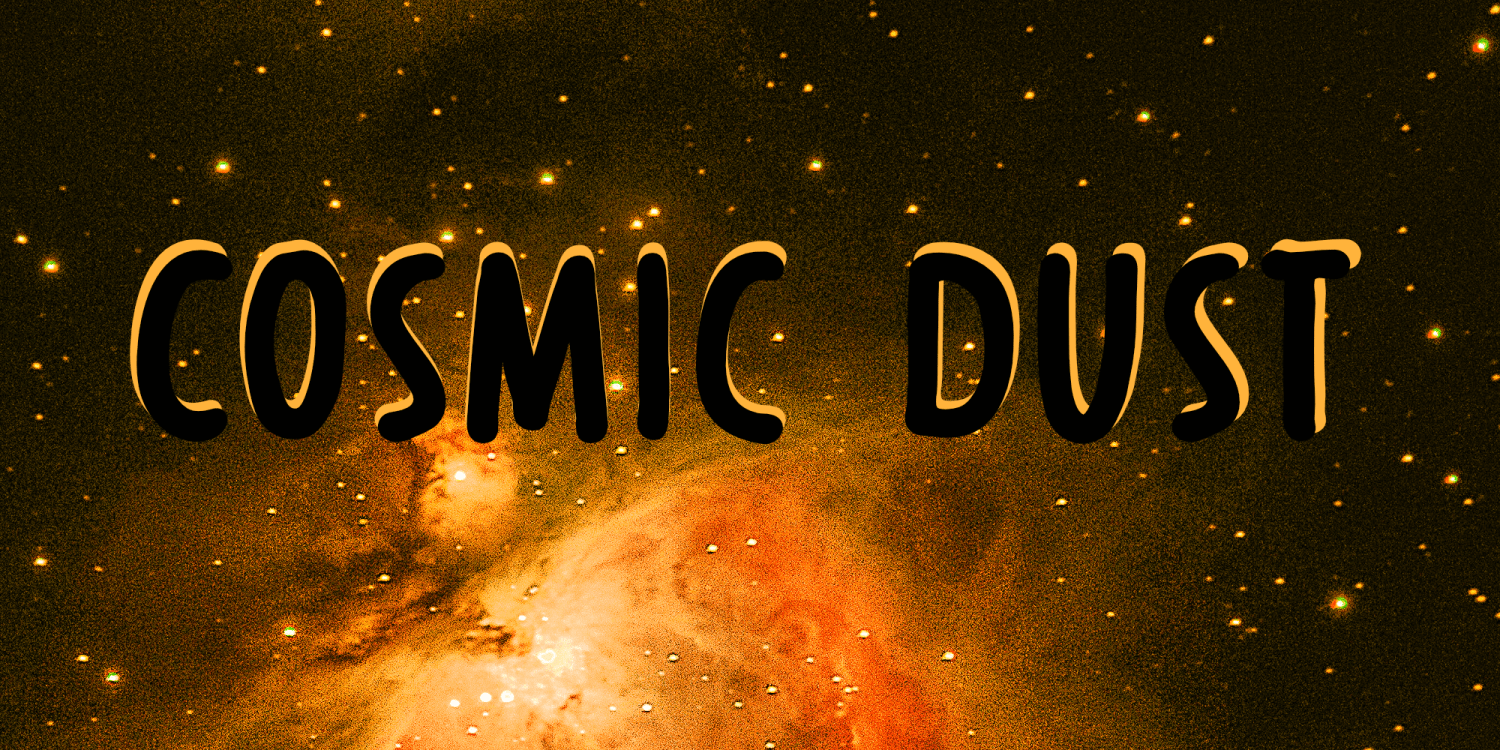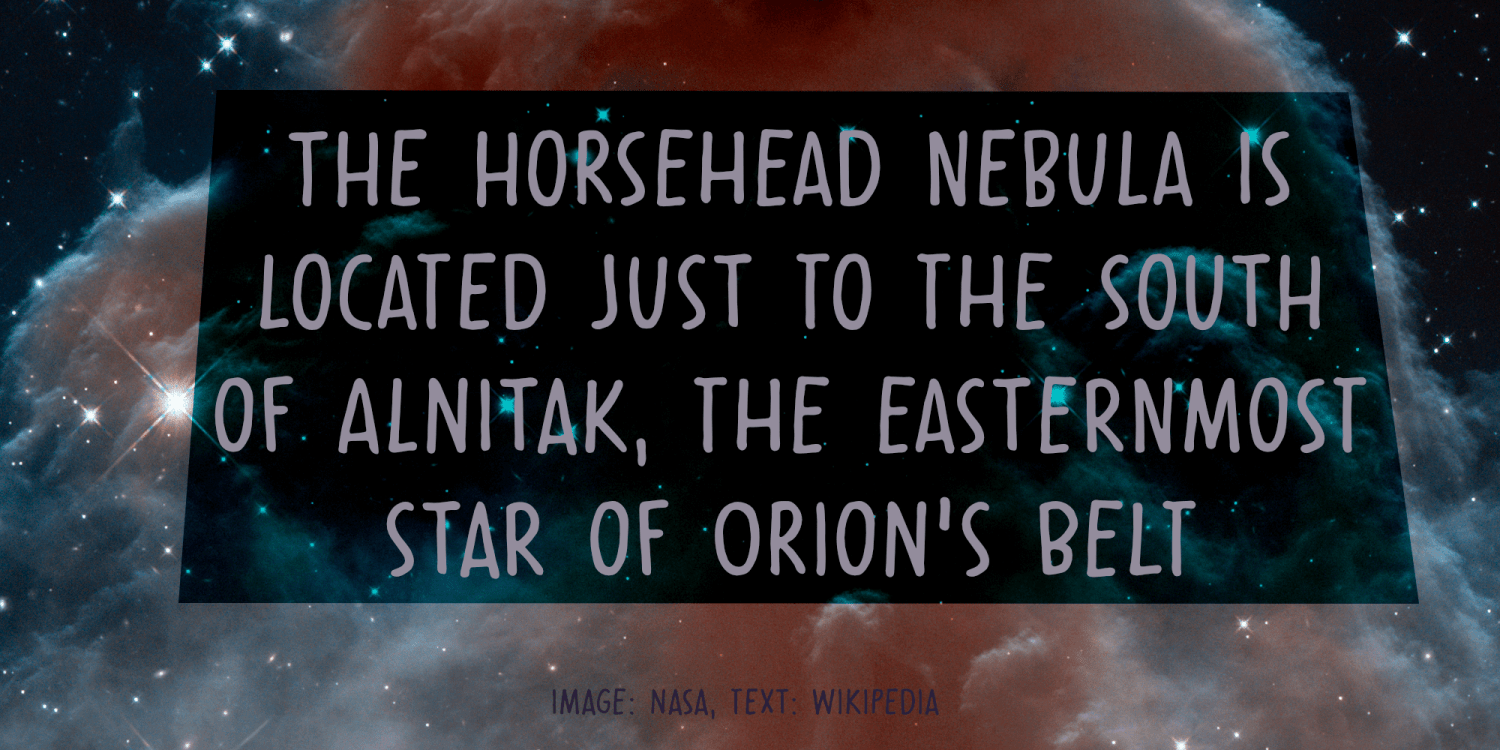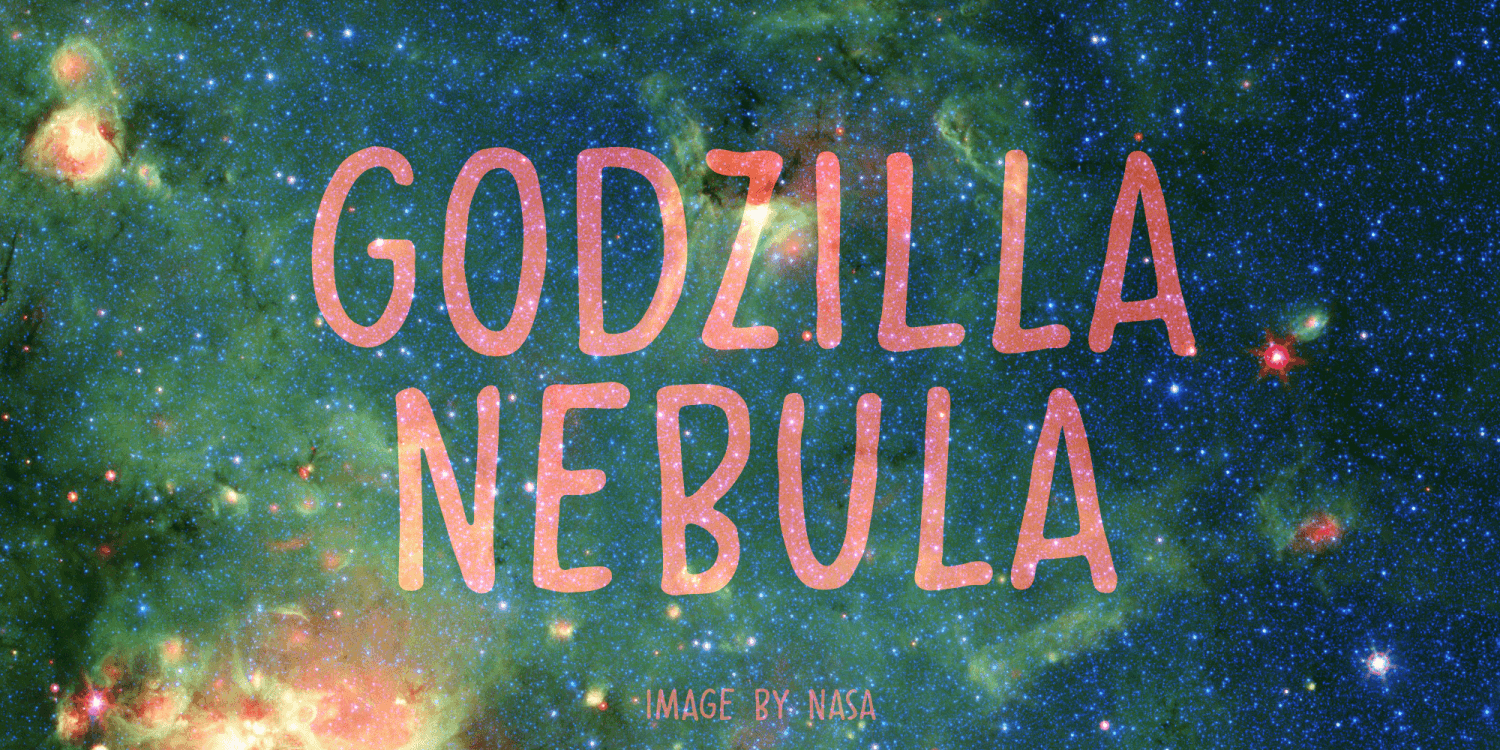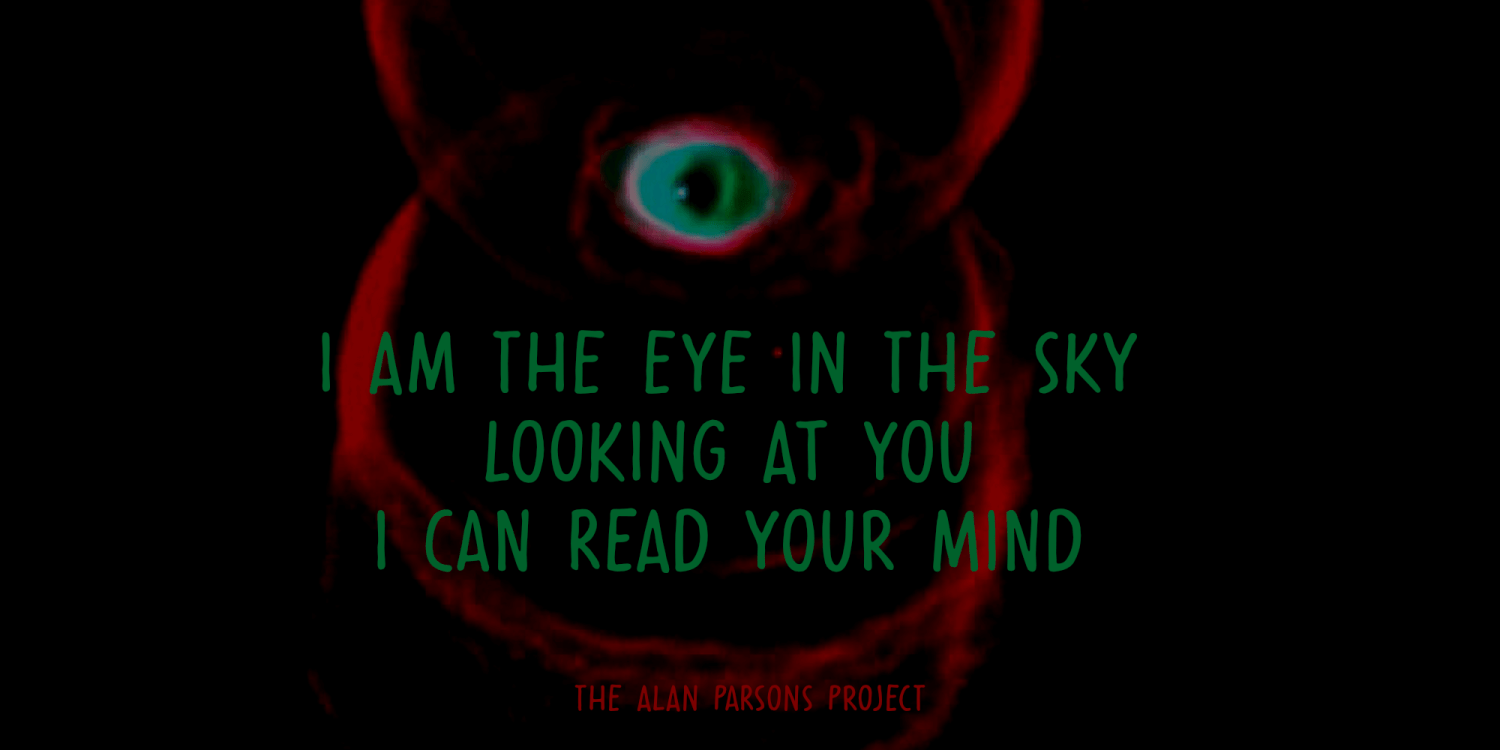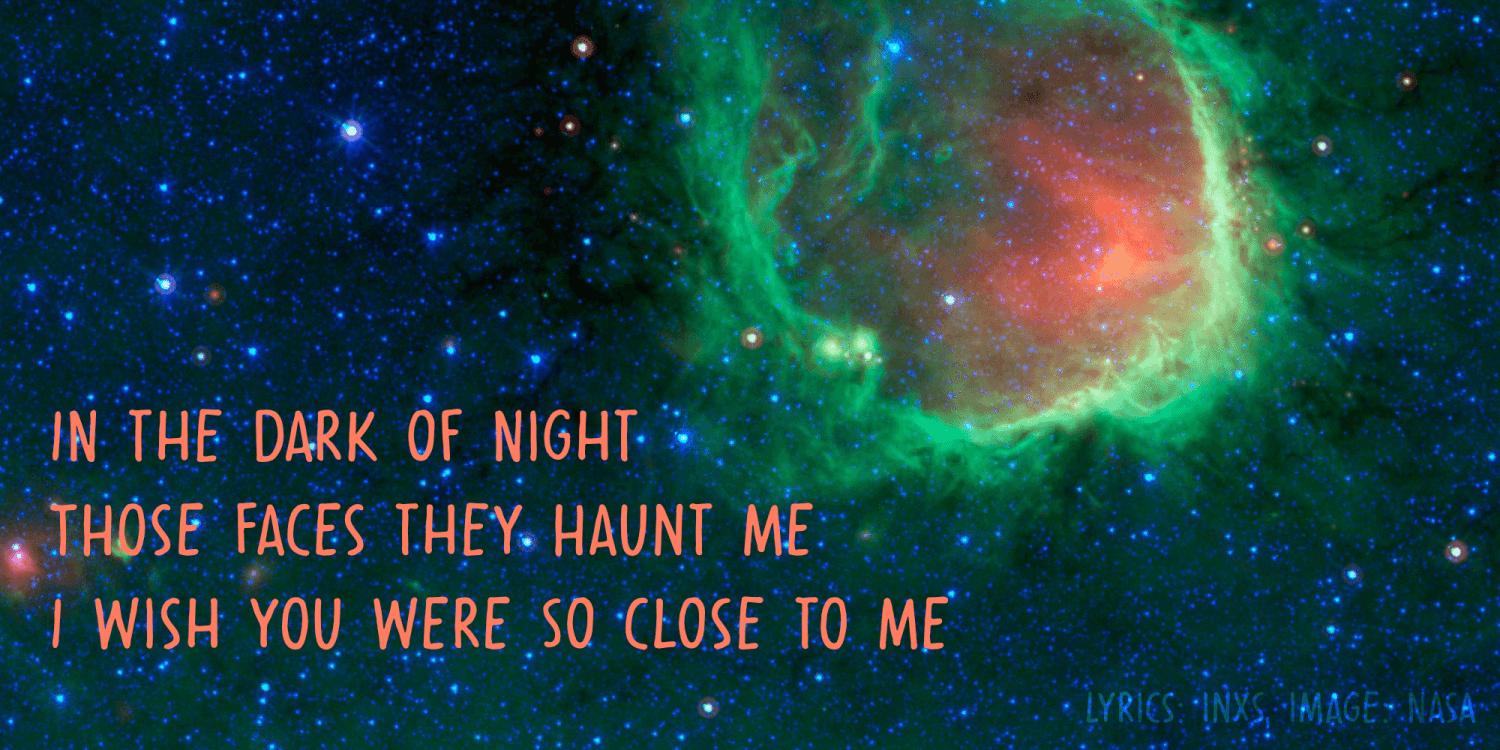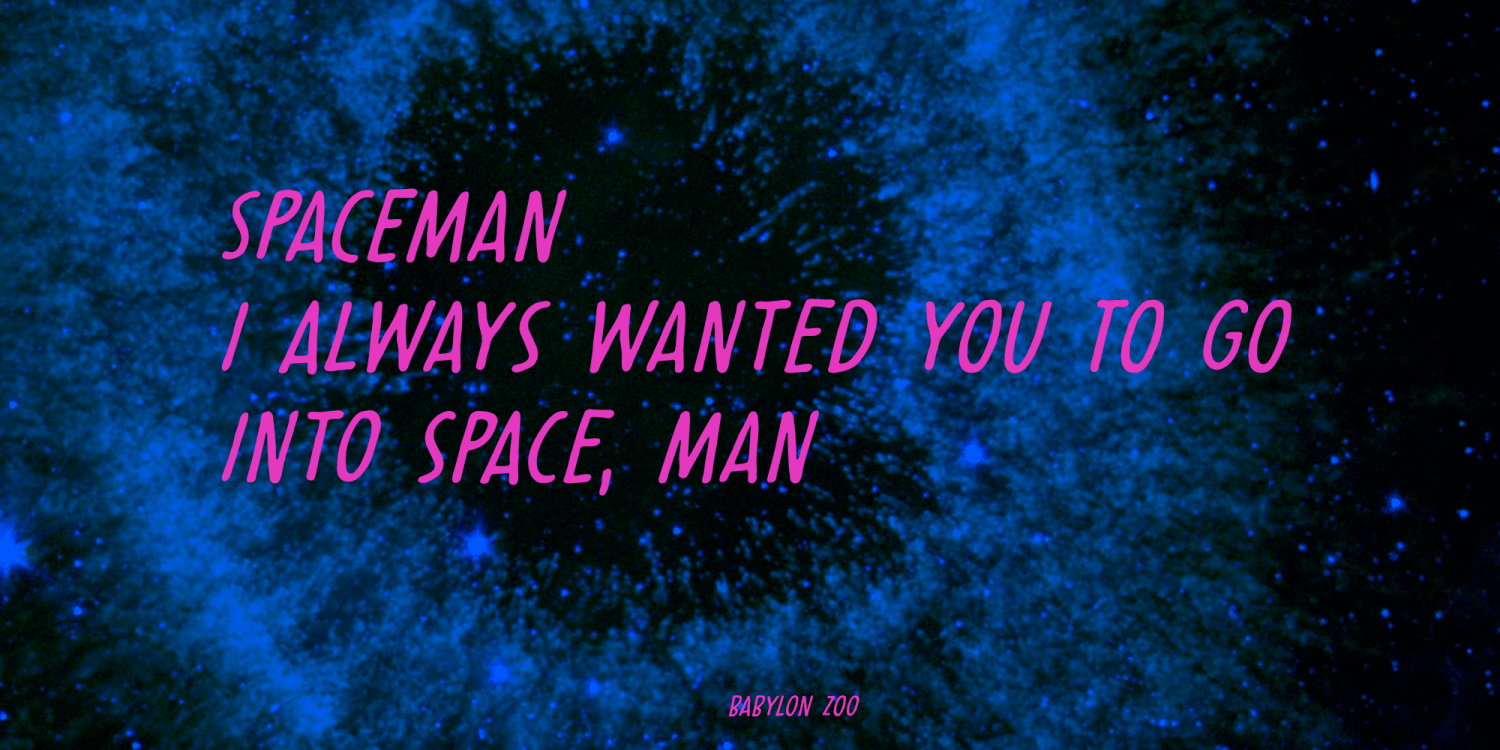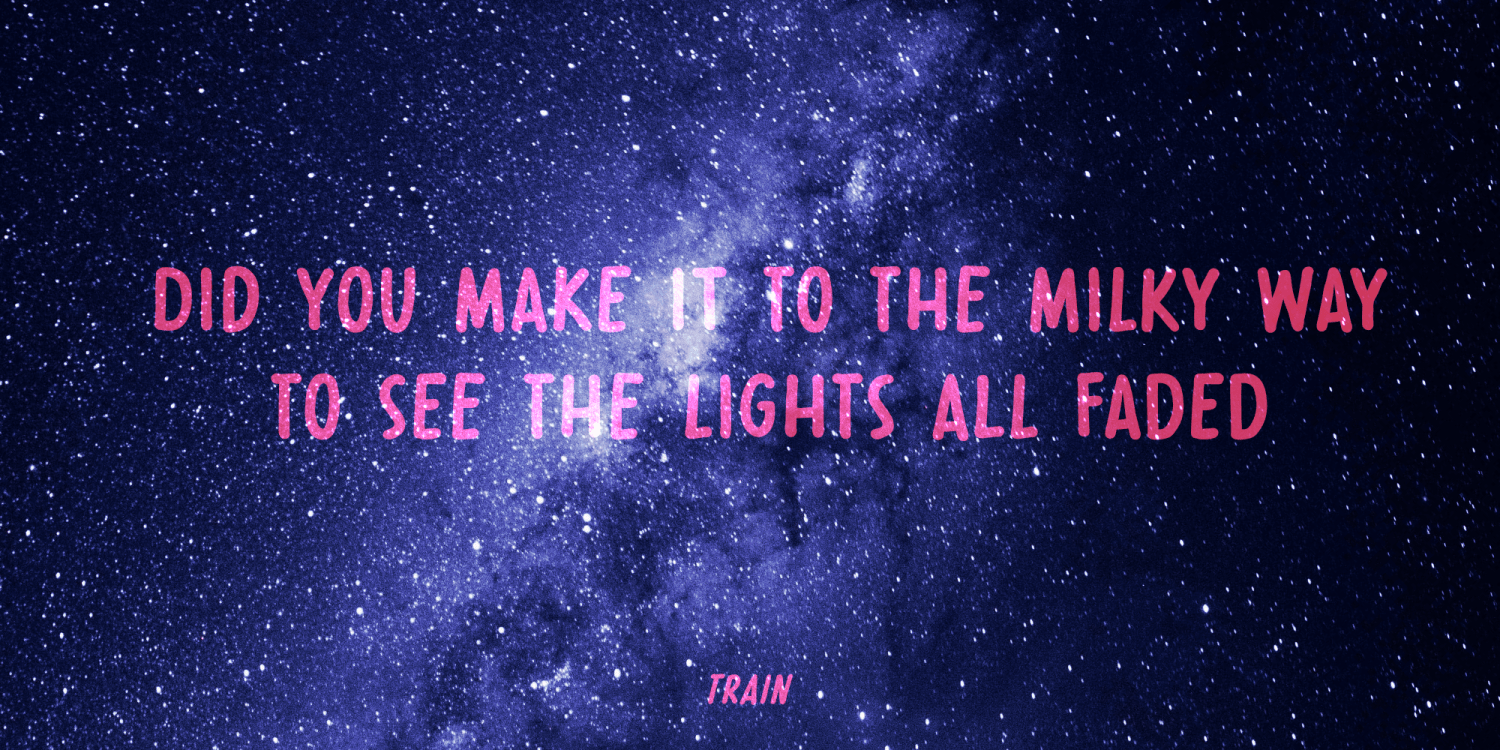
Cosmic Dust
Cosmic Dust is dust that occurs in outer space or has fallen onto earth. Cosmic Dust font isn't a dusty or celestial affair, no, it is a nice and useful font I made with a Sharpie pen. It is a little uneven, a little wobbly, but comes with a lot of character. Use it for your book covers, product packaging or posters. Cosmic Dust comes with extensive language support and a cool set of alternates.